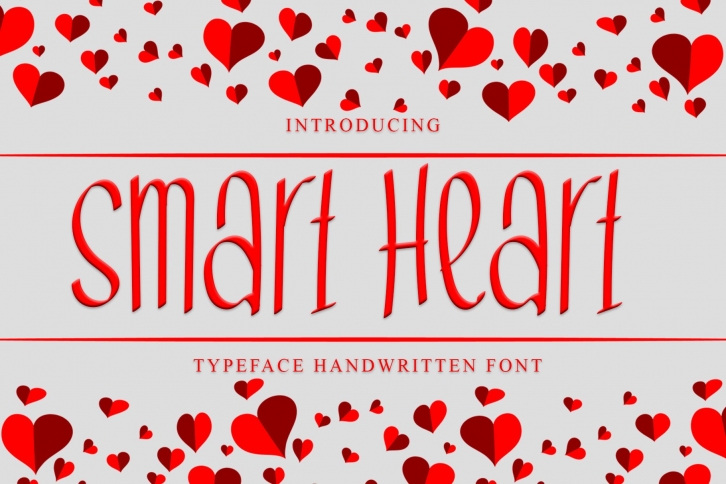
Smart Heart is a beautiful font that was designed by Giart Studios. It's a great choice for designers and creatives who need such a font. It was released on January 25, 2022 and the file size is 11.26 MB. Smart Heart may give a more youthful, expressive and casual look to your project. It is a very beautiful, refined, elegant, and high-quality font.